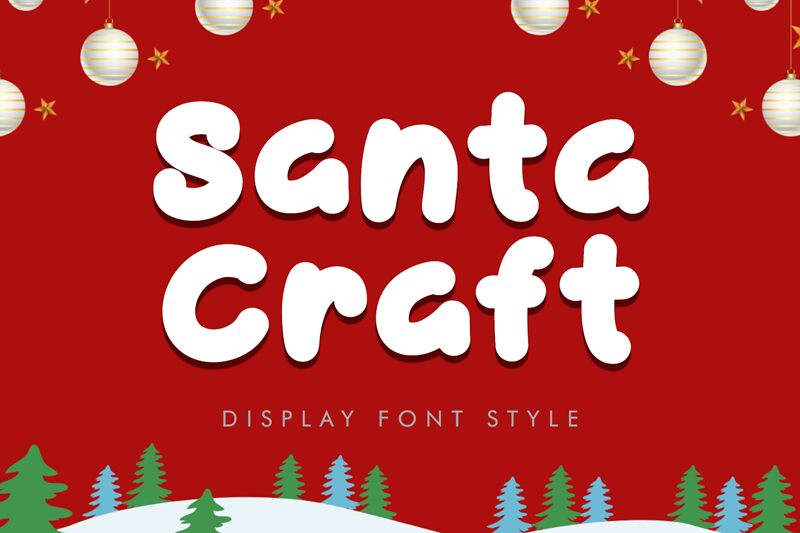
Santa Craft font by Yoga Letter is a free font with a fun and lively presence. The digital type has a cartoon style as it is round and bubbly, with no sharp angles or edges. Its overall design is friendly, approachable, and cheerful. Each character is playful and suitable for informal and festive purposes. Not another font you see every day, Santa Craft is special and will easily appeal to adults and children alike. It is usually used in festive graphic designs.
The cartoon font does not require a specific usage or occasion, as it can be used in any project as long as the typographic mood it carries is relevant. Try this one out in invitation cards, personalization of gifts, book illustrations, board games, and product packages. Combine it with playful vector cartoons for websites or posters that target children, or with logo symbols for businesses that provide services to young clients such as nurseries and playgrounds. You can create funky websites, blogs, or applications with it.